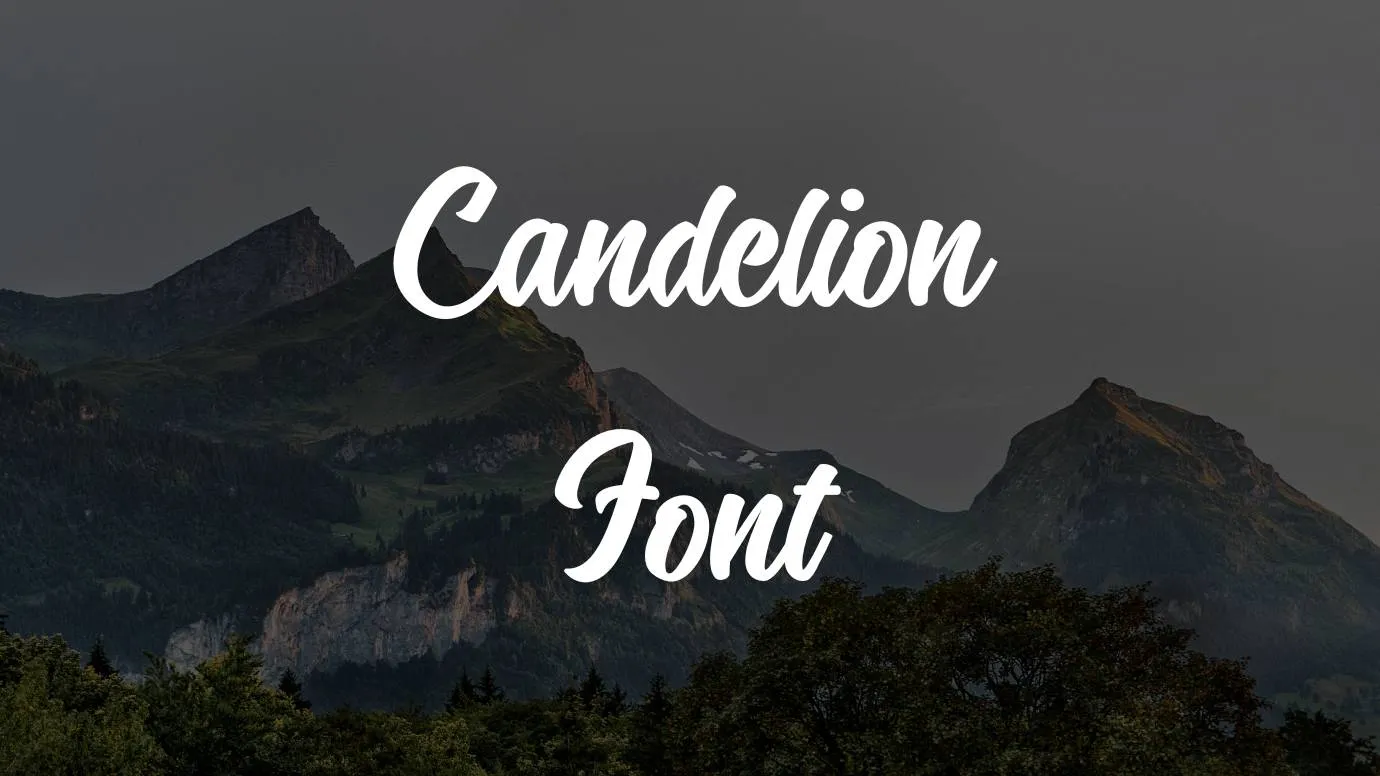
Candelion Font Family comes in a modern and cohesive look. This stylish font was mainly designed by Tanziladd. This texture falls in the category of the script family of fonts. This texture is known for its three extraordinary styles. This cozy font family has a free generator tool that you can easily pick for a simple text design.
The popularity of this font is so high in the design market due to its awesome look. Anyone can easily pick it for a high-quality design and make its combination easily with cotton candies font. This stylish texture comes in more than 102 stunning characters including Latin-1 Supplement, Uppercase, Numerals, General punctuations, Special characters, Symbols, and Lowercase letters.
Type | Script |
Designer | Tanziladd |
What kind of font is Candelion Font?
The type of this outstanding font is a script and it was designed by Tanziladd that is a famous font studio.